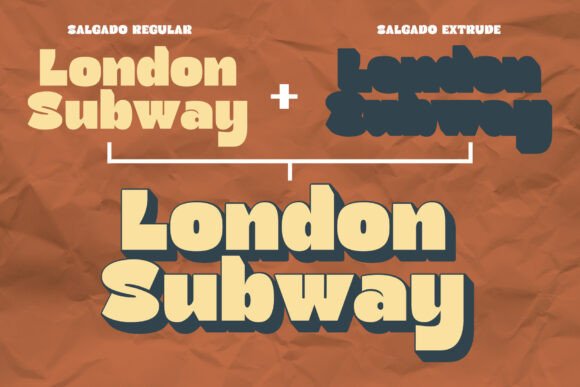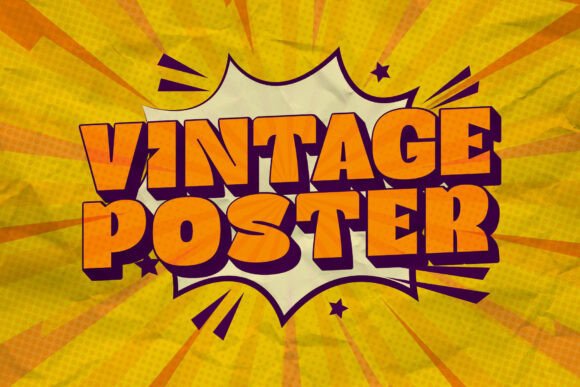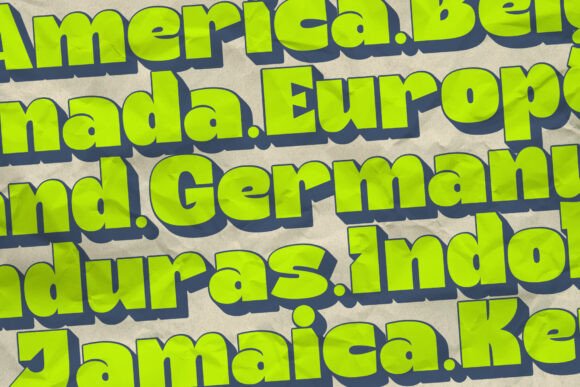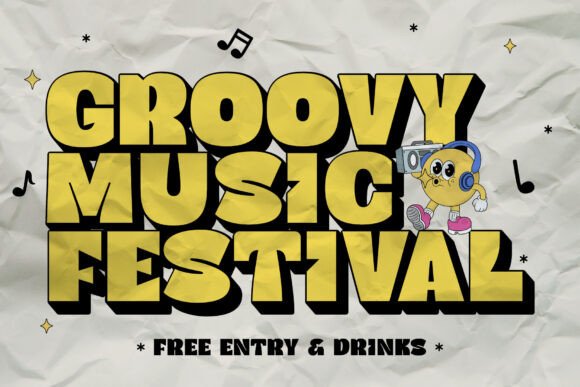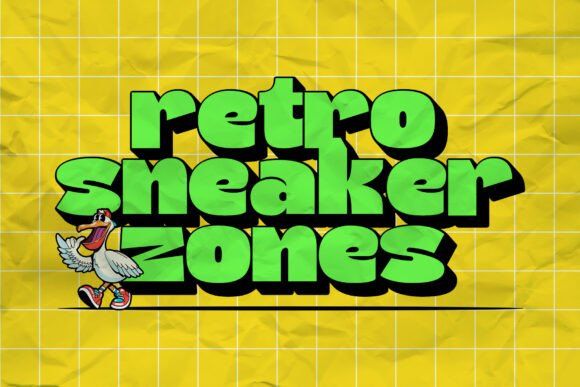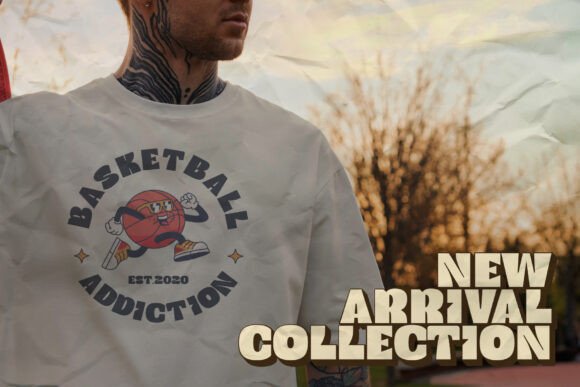
Introduction to Salgado Font
Unleash your creativity with Salgado, a stunning modern bold sans serif font that exudes confidence and style.
With its clean lines and dynamic extrude effect, Salgado brings a contemporary flair to any design project Perfectly suited for posters, T-shirt designs, branding, and more, this font effortlessly elevates your visuals, making them stand out from the crowd.